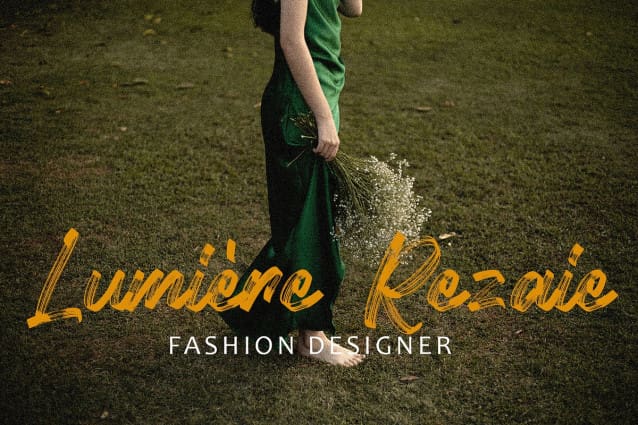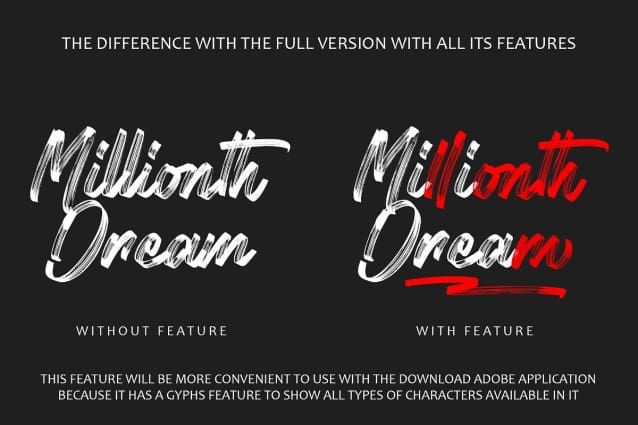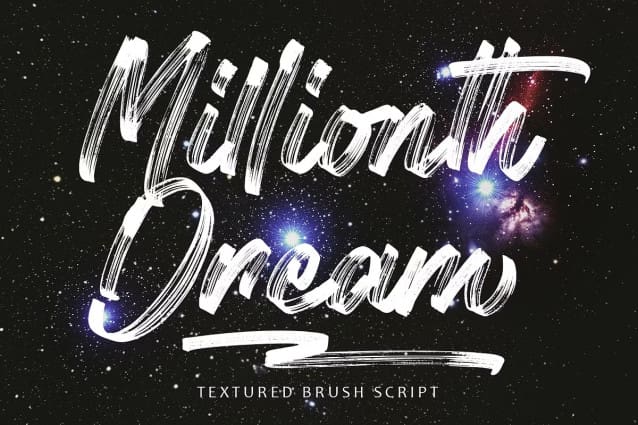
Millionth Dream Font
Millionth Dream Font – textured brush script font combines the characteristics of brush scripts with textured elements, resulting in a typeface that exudes authenticity, warmth, and depth. Here’s a breakdown of its key features and benefits:
Key Features:
-Brush Script Style: Textured brush script fonts are inspired by hand-lettering with brush pens or brushes. They feature fluid strokes, varying thicknesses, and irregularities characteristic of brush lettering, giving them a natural and organic appearance.
-Textured Elements: Unlike clean and smooth brush script fonts, textured brush script fonts incorporate rough or distressed textures into the letterforms. These textures mimic the look of aged or weathered brush strokes, adding visual interest and depth to the typography.
-Authenticity: The combination of brush script style and textured elements lends an authentic and handcrafted feel to textured brush script fonts. They evoke the charm and imperfections of handmade lettering, making them feel more personal and relatable.
-Warmth and Character: Textured brush script fonts have a warm and inviting quality that adds character and personality to designs. The textured elements imbue the typography with a sense of history and nostalgia, making it feel more genuine and authentic.
-Versatility: While textured brush script fonts are often associated with rustic or vintage themes, they can be versatile and adaptable to various design styles and themes. They can be used for anything from retro-inspired designs to modern and contemporary projects.
Benefits:
-Visual Interest: Textured brush script fonts add visual interest and depth to designs, making them more compelling and engaging to viewers. The textures create dimensionality and richness in the typography, enhancing its overall appeal.
-Expressiveness: The handcrafted nature of textured brush script fonts allows designers to convey emotion, personality, and style through typography. They add a human touch to designs, making them feel more relatable and authentic.
-Flexibility: Textured brush script fonts can be used in a wide range of design applications, including branding, packaging, advertising, signage, and more. They can be adapted to different styles and themes, making them versatile tools for designers.
-Customization: Textured brush script fonts offer opportunities for customization and creative experimentation. Designers can adjust the opacity, blend mode, or color of the textured elements to achieve the desired look and feel for their designs.
-Timelessness: Textured brush script fonts have a timeless quality that transcends trends and fads. They evoke a sense of nostalgia and authenticity that resonates with audiences across generations, making them enduring choices for design projects.
In summary, a textured brush script font combines the expressive qualities of brush script style with the visual richness of textured elements, resulting in a typeface that is both authentic and visually captivating.